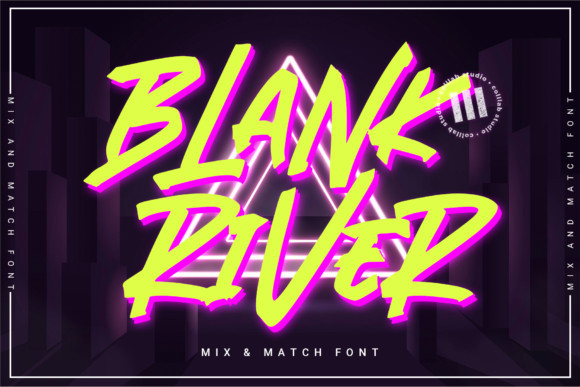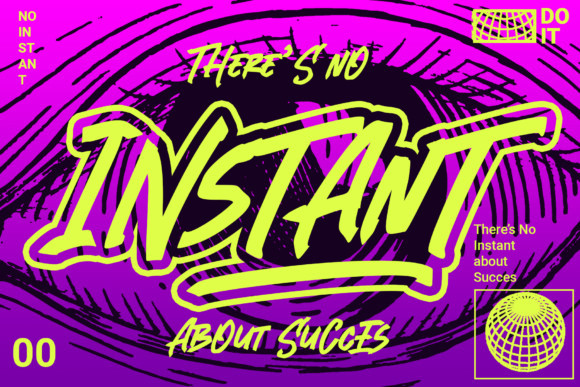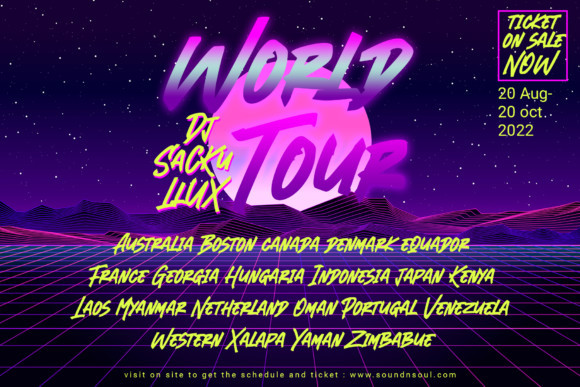
Blank River Font
Blank River is a unique display font. It will elevate a wide range of design projects to the highest level, be it branding, headings, signatures, logos, labels, and much more!